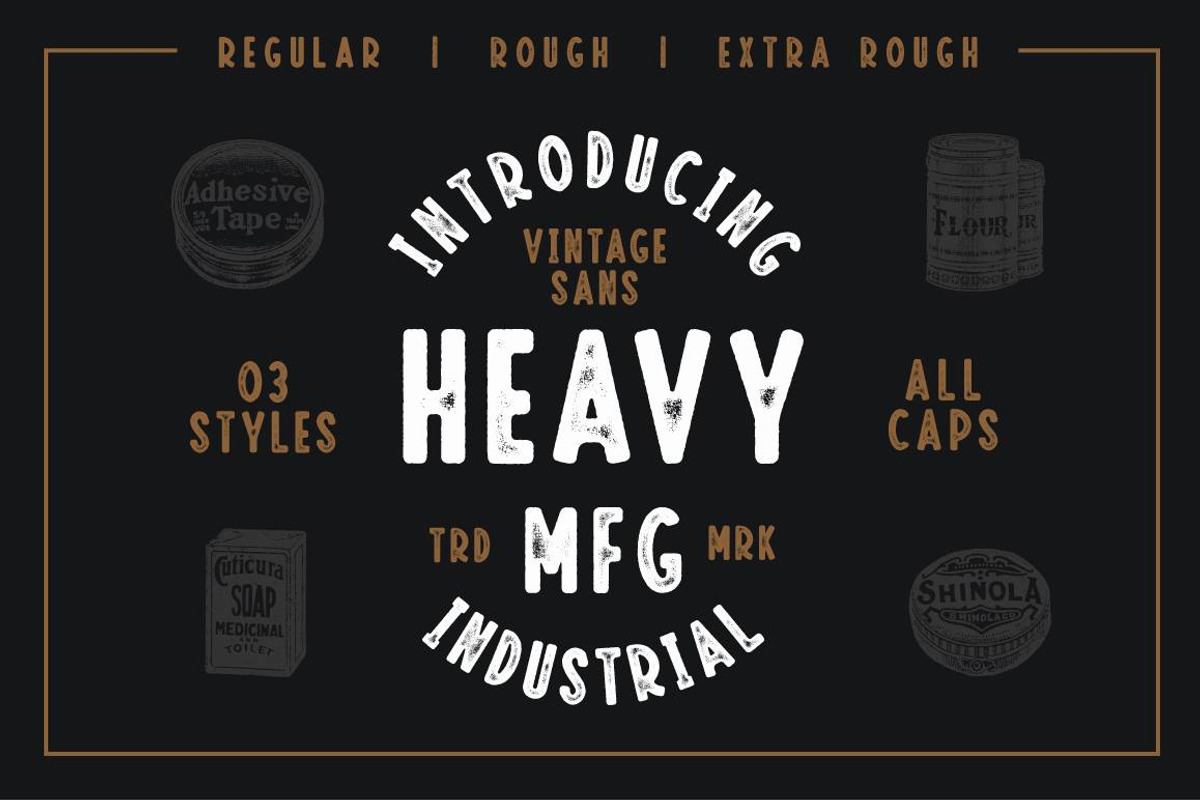
Bring industrial charm and vintage grit to your projects with Heavy MFG - Vintage Sans Serif Fonts Free Download. Inspired by classic factory signage and old-school typography, this font family delivers bold letterforms with a rugged, authentic character—perfect for logos, apparel, packaging, posters, and branding with a retro edge.
Its sturdy design and strong presence make Heavy MFG a standout choice when you want to convey reliability, heritage, and timeless style. Whether you're crafting a vintage-themed brand or just love that worn-in aesthetic, this font does the heavy lifting with style.